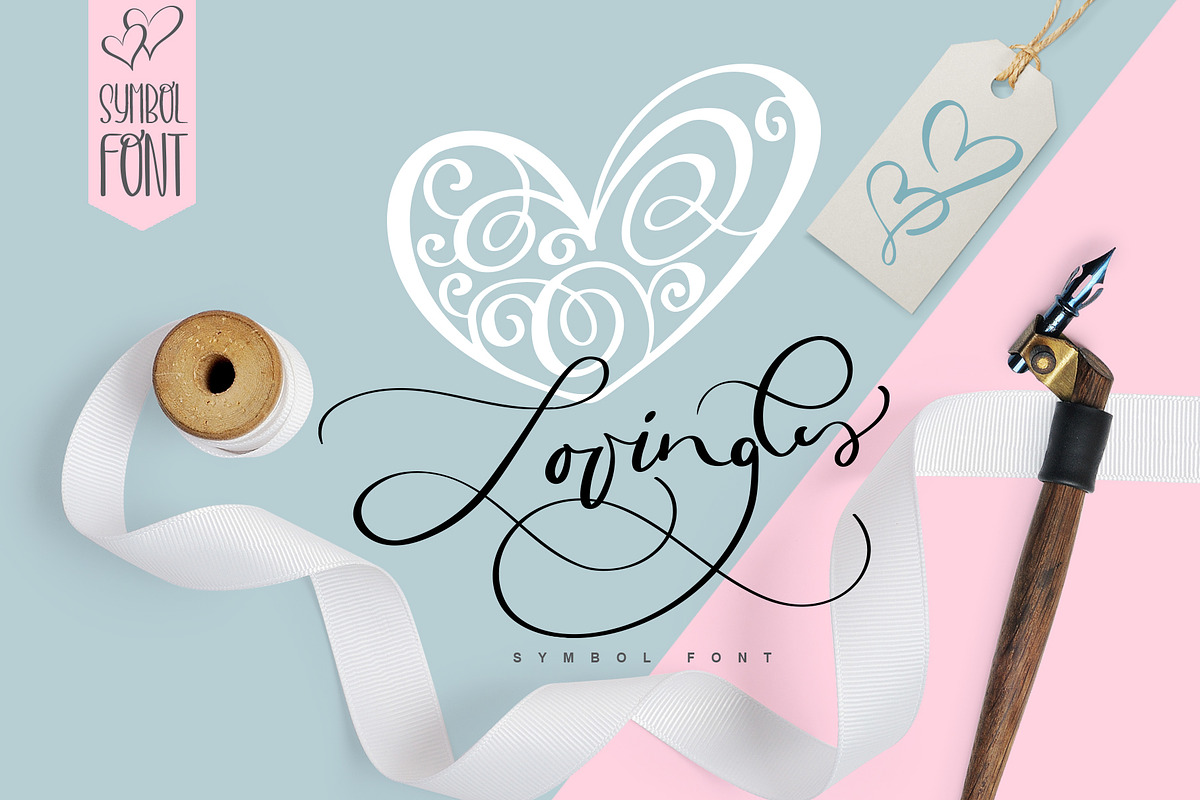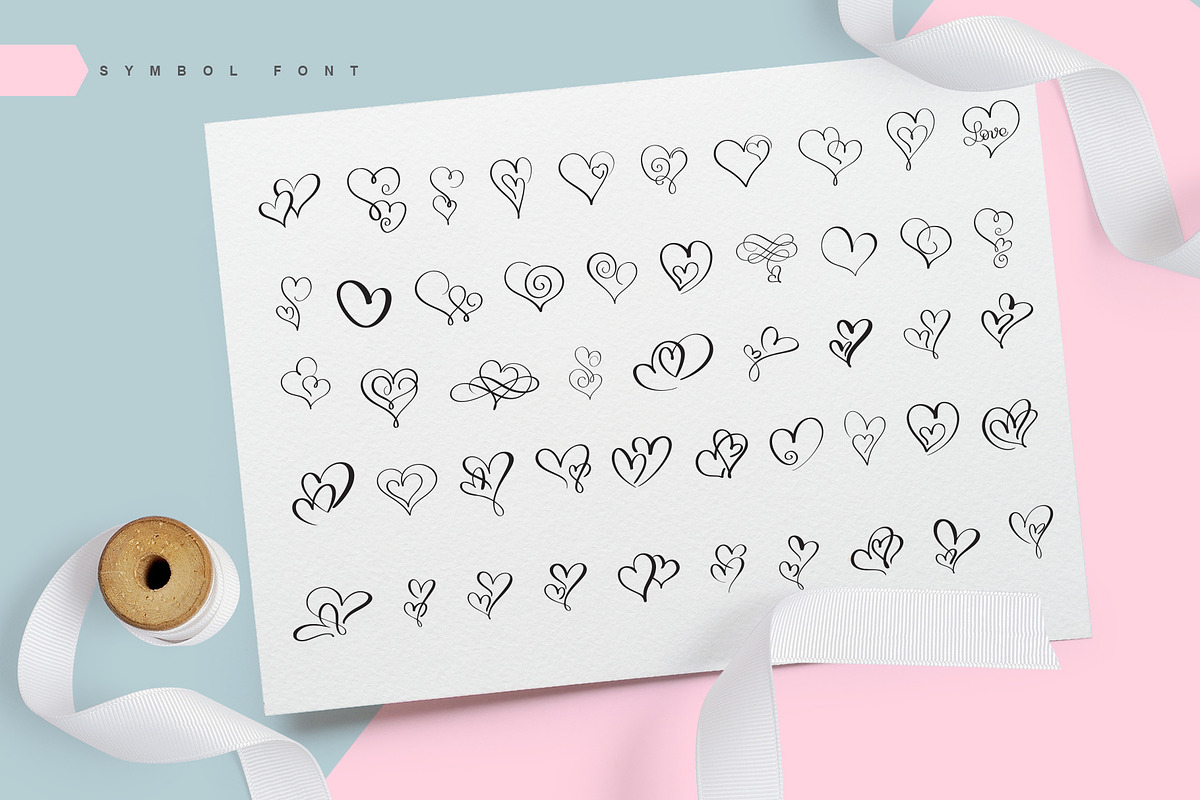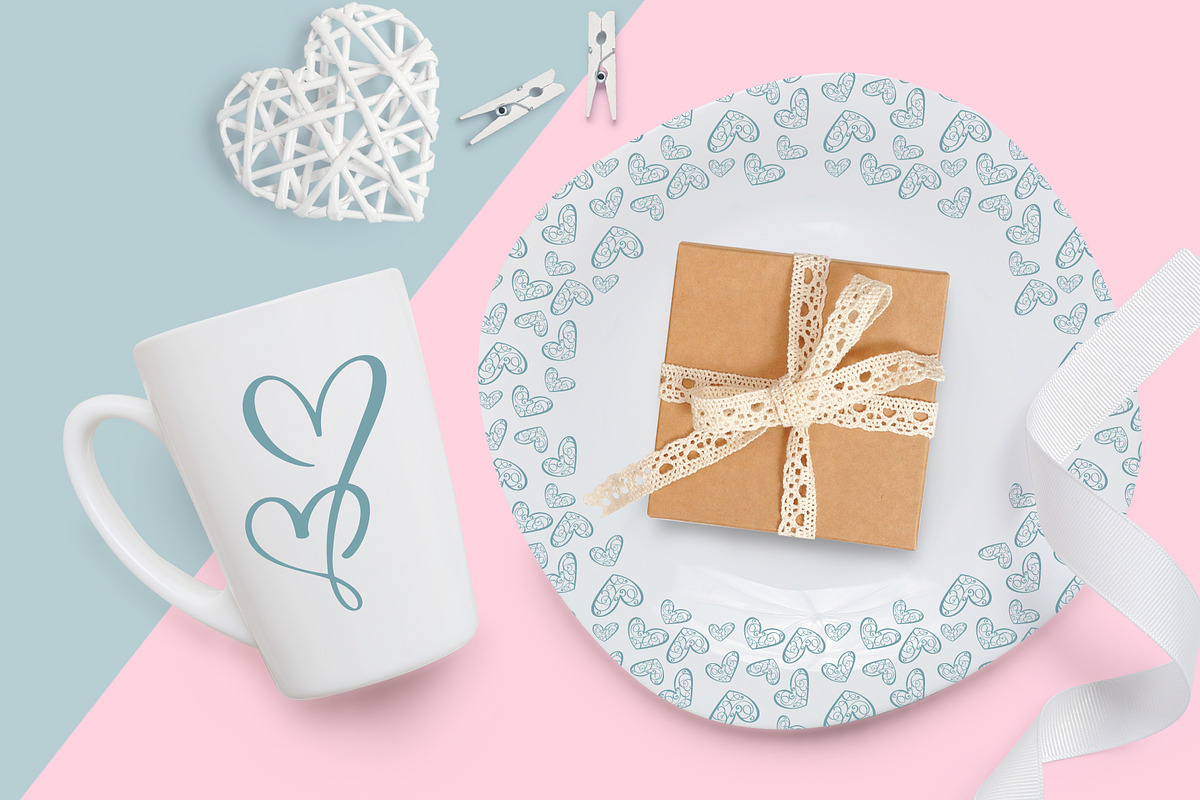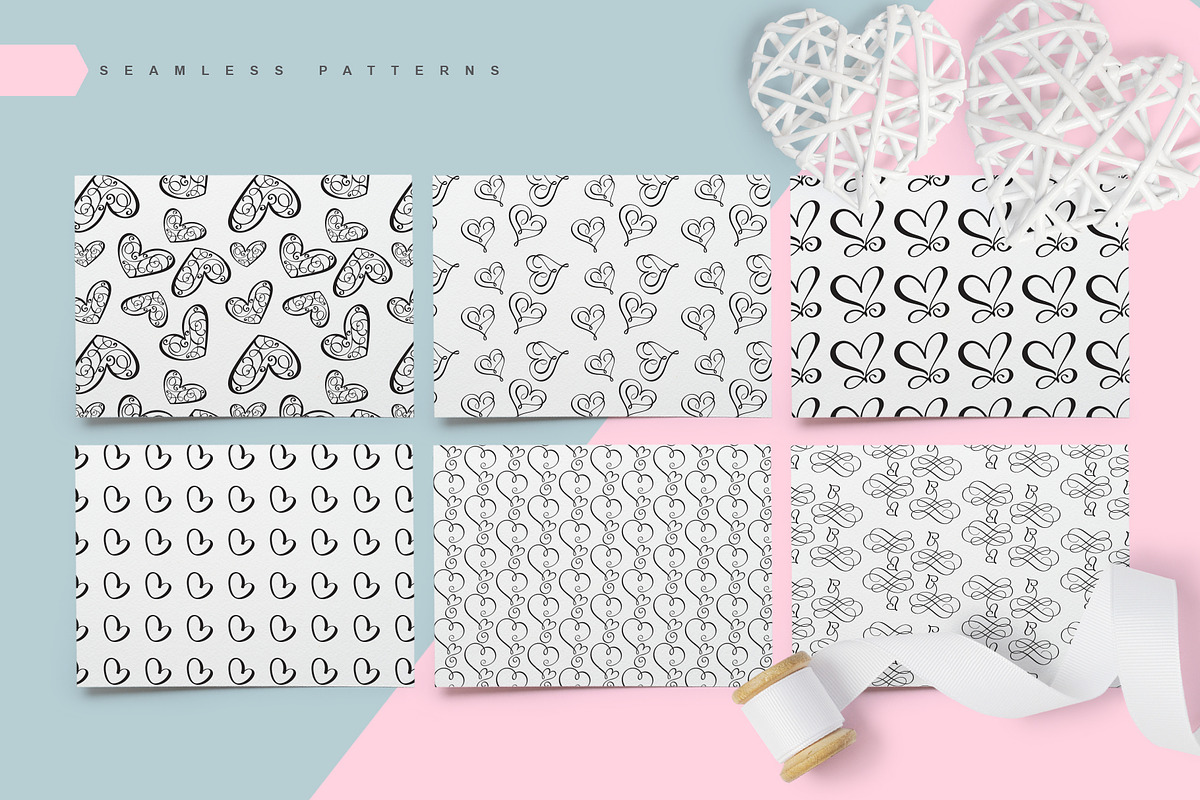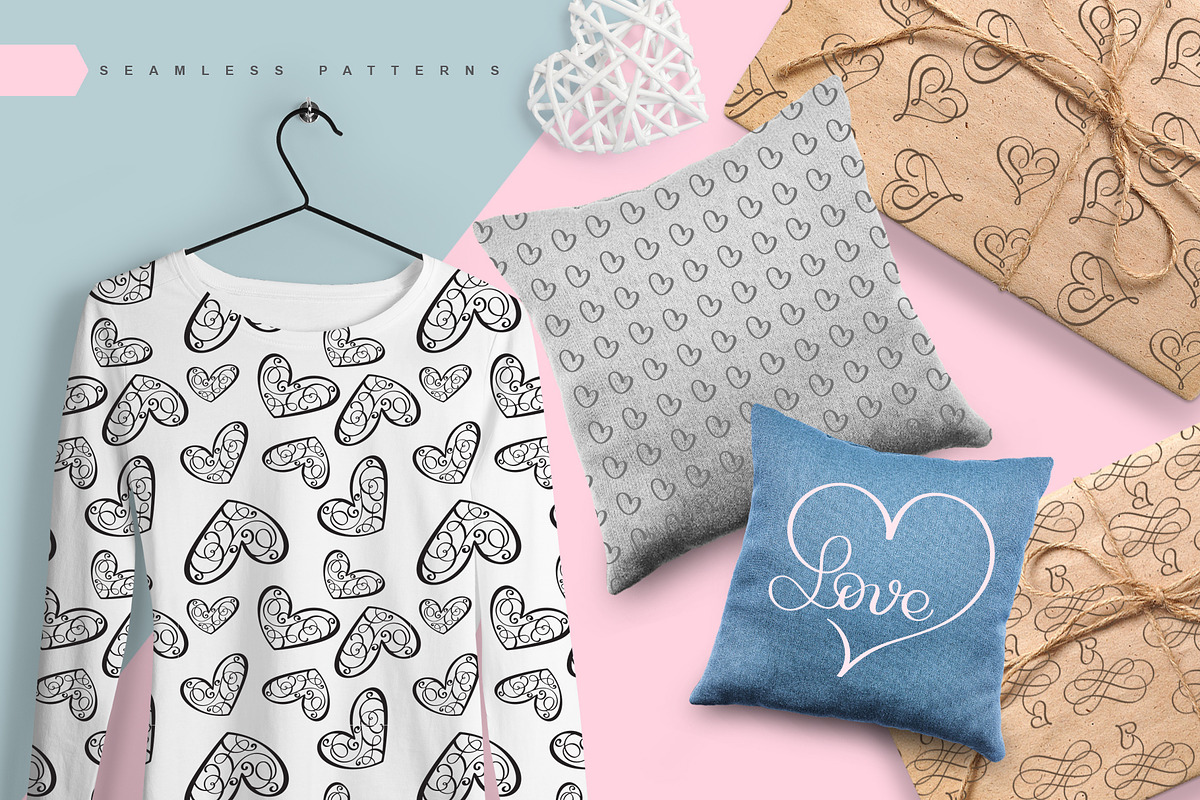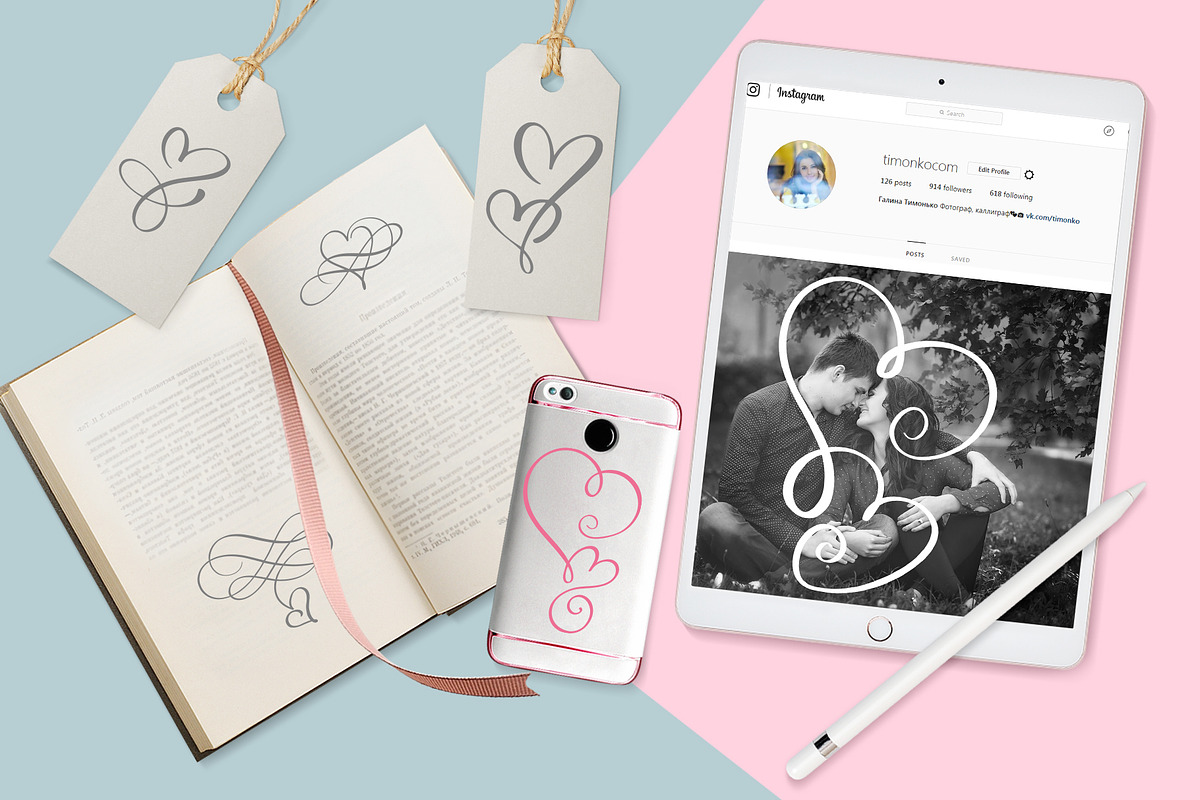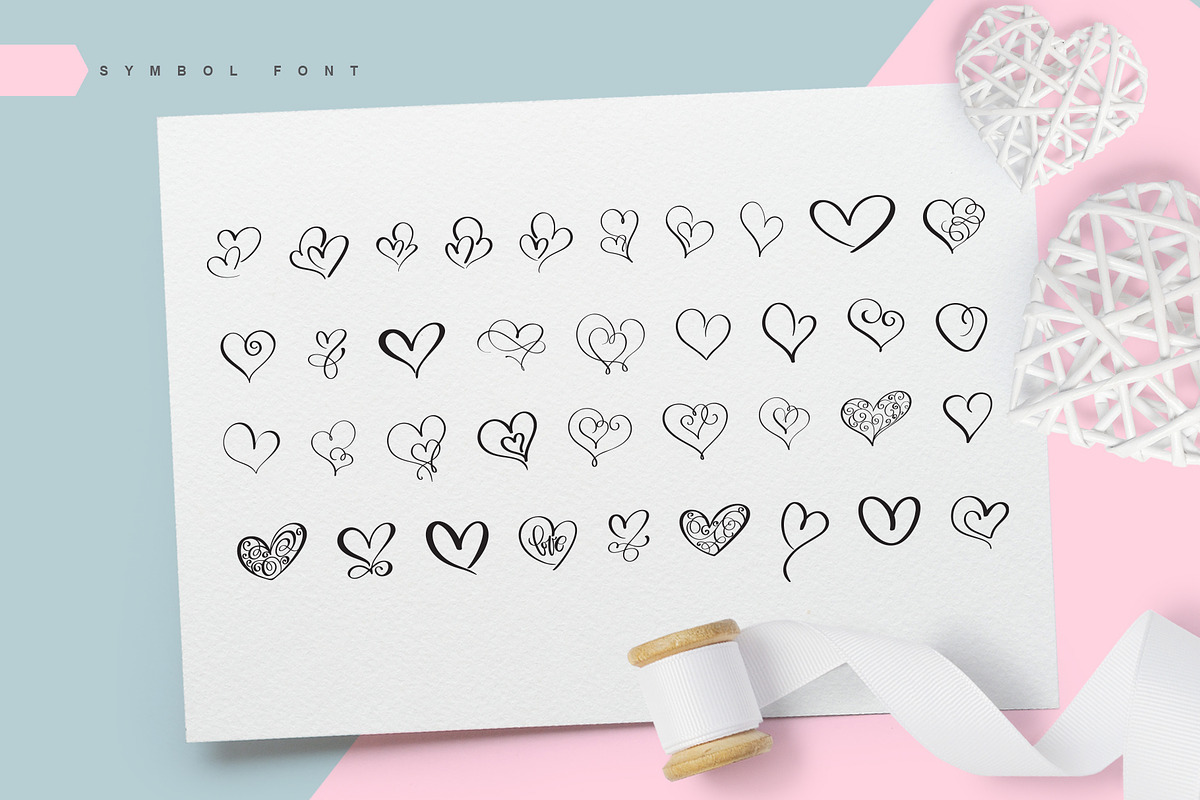
Lovingly Symbol Flourish Hearts Font
Lovingly includes unique heart flourishes that give a charm and romantic love holiday mood ornaments, Valentine greeting cards, invitations, etc. Thin, elegant calligraphic lines like a light breeze give freshness and dreaminess to your handmade creations.
All letters on photos it`s for example. You will have only flourishes font.
This font contains only dingbat symbols.
There are no letters in it, only symbols.